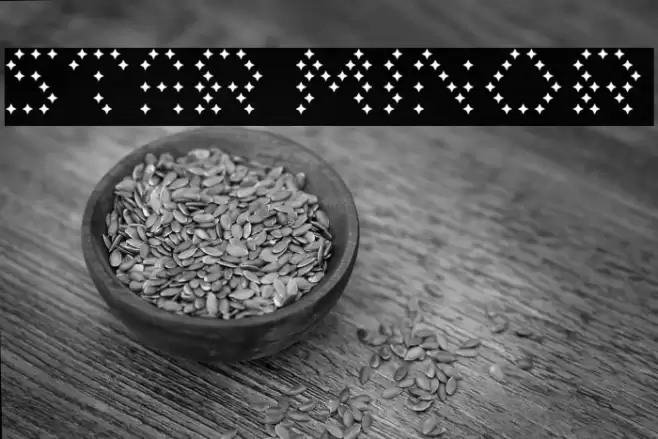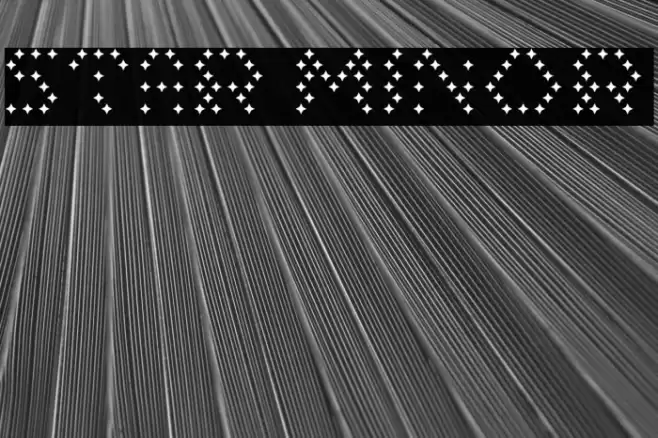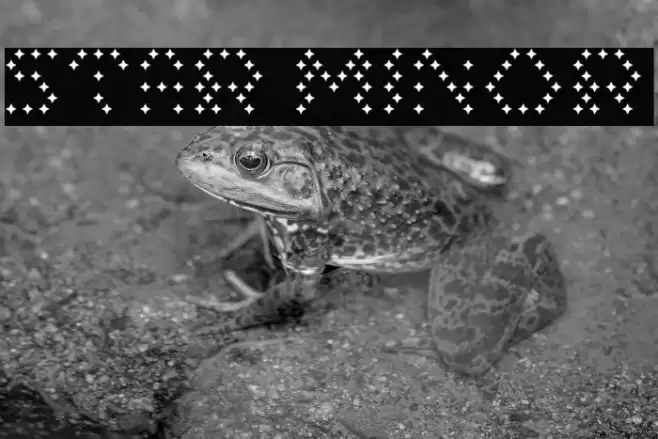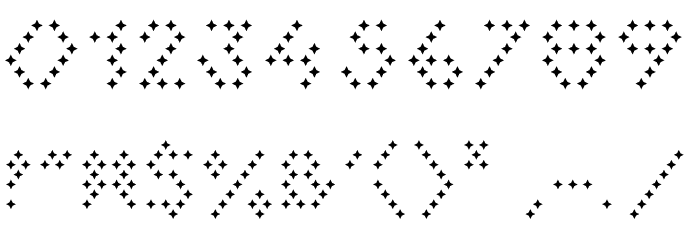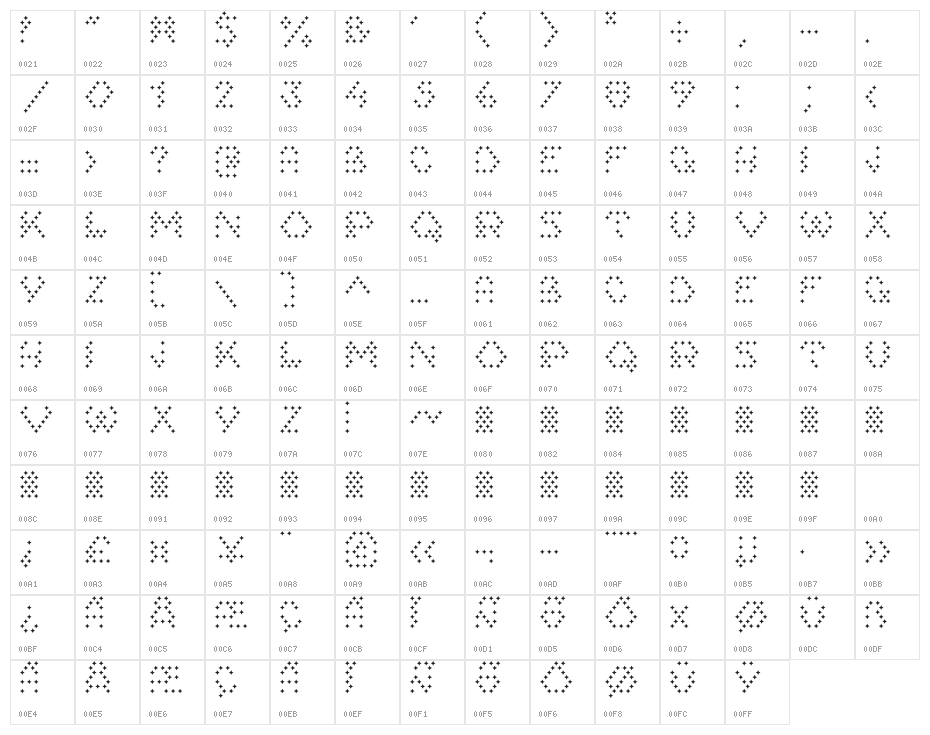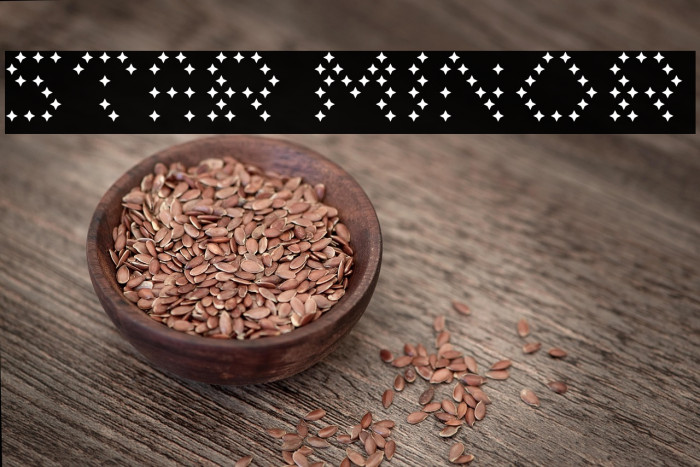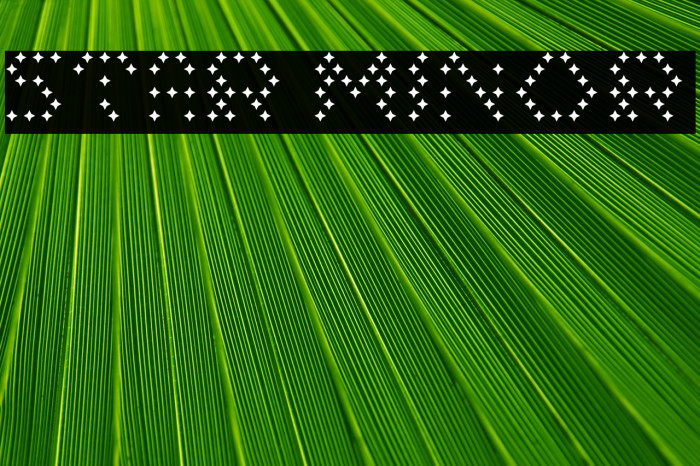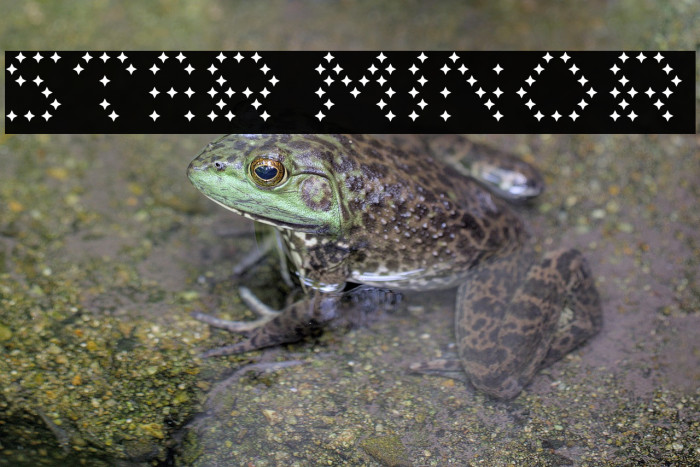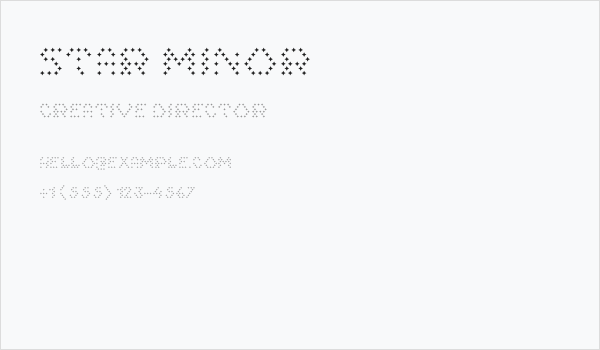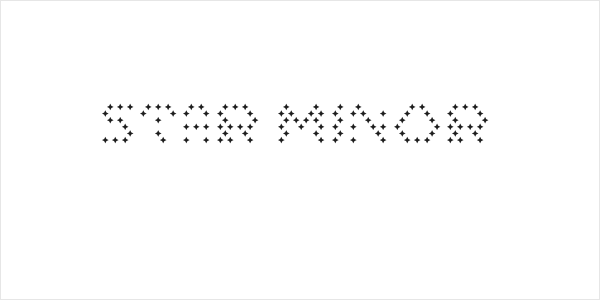
Star Minor Font
Star Minor Description
This font is a unique and decorative display typeface composed entirely of star-shaped elements. Each character is formed by a series of small stars, creating a visually striking and playful appearance. The design is consistent across uppercase and lowercase letters, as well as numbers and special characters, maintaining a cohesive look. The font's star motif gives it a whimsical and festive feel, making it ideal for creative projects that require a touch of fun and originality. The spacing between characters is relatively tight, enhancing the compact and dense appearance of the text. This font is perfect for projects that aim to capture attention and convey a sense of celebration or uniqueness.
A decorative display font made entirely of star-shaped elements, offering a whimsical and festive look from Uncategorized fonts.
- Font: Star Minor
- Proposed Projects: Ideal for party invitations, festive banners, children's book covers, and creative branding materials.
- Bold: No
- Character Spacing: Tight
- Overall Style: Decorative
- Use Case: Headlines, Logos